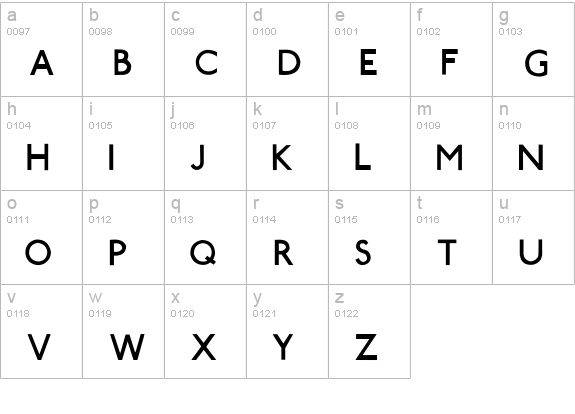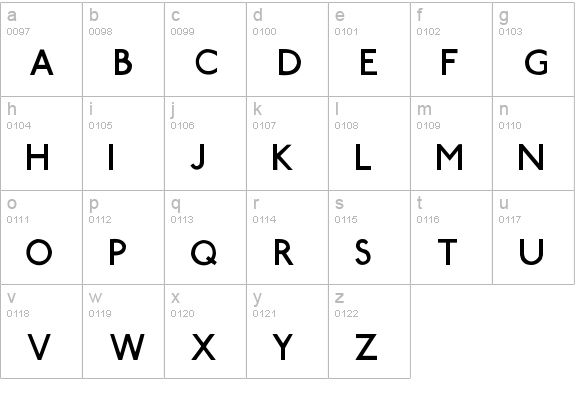
Tube Station font is a modern and stylish typeface that beautifully captures the essence of urban life and the bustling energy of a metropolitan city. With its sleek lines and contemporary design, this font is perfect for creating eye-catching and impactful designs. The Tube Station font features a unique combination of geometric shapes and smooth curves, giving it a distinct and dynamic look. It is versatile and can be used for a wide range of design projects, including logos, posters, headlines, and more. One of the best things about the Tube Station font is that it is completely free! That's right, you can freely download this font at FontsMarket.com, making it accessible to everyone. Whether you're a professional designer or a hobbyist, this font is a valuable addition to your collection. With its clean and legible characters, the Tube Station font is highly readable even at smaller sizes. This makes it perfect for use in body text, ensuring that your message is easily understood by your audience. Its bold and impactful presence also makes it a great choice for larger display applications, where it can really make a statement. The Tube Station font is available in multiple weights and styles, allowing you to create a variety of looks and effects. From the bold and commanding Regular weight to the elegant and refined Italic style, this font offers versatility and flexibility for your design needs. Whether you're designing for print or digital, the Tube Station font is a reliable choice that will elevate your designs to the next level. Its contemporary and stylish aesthetic, coupled with its availability as a free download at FontsMarket.com, makes it a must-have font for any designer looking to make a statement. So why wait? Start incorporating the Tube Station font into your designs today and see the difference it can make.